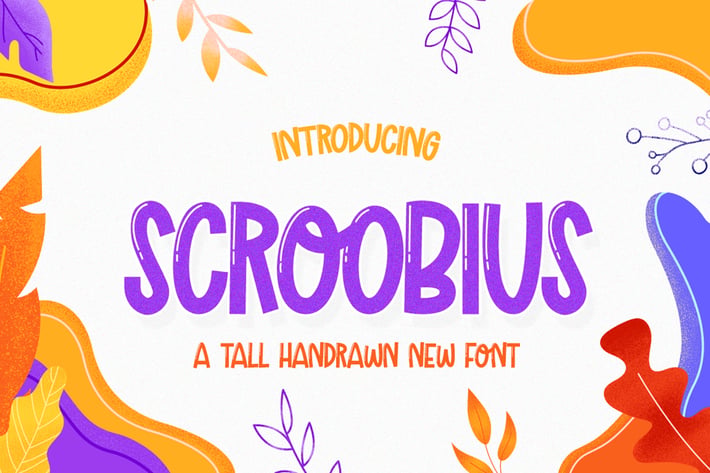
Scroobius Font
Introducing Scroobius! A fantastic new font by salt and pepper designs! Not only does it stand as tall as a pineapple but itβs as sweet as one too! Enjoy!